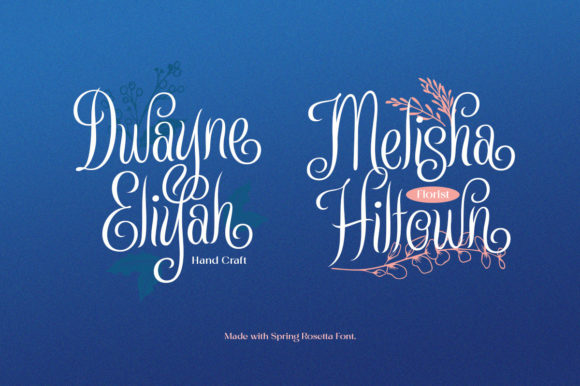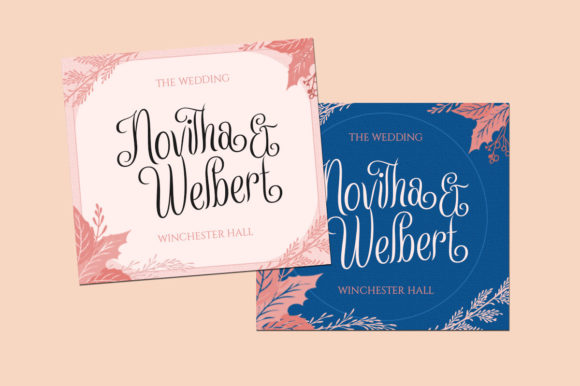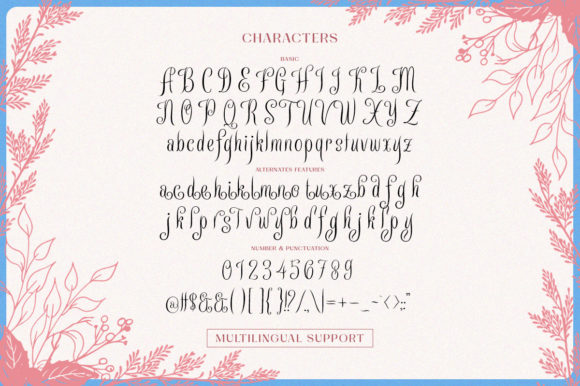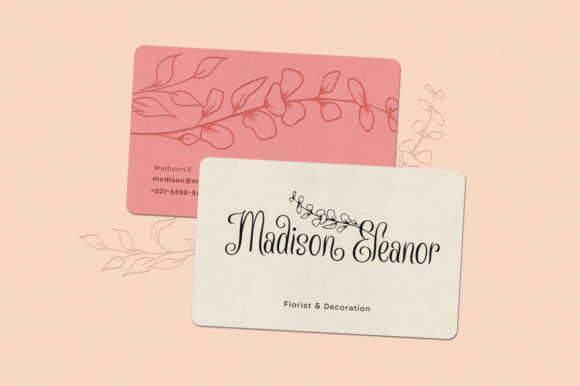
About Winter Rosetta Font
Winter Rosetta is a pretty script font based on authentic hand writing with natural signature styles. It comes with floral, botanical hand drawn illustrations which will most definitely enhance your designs.